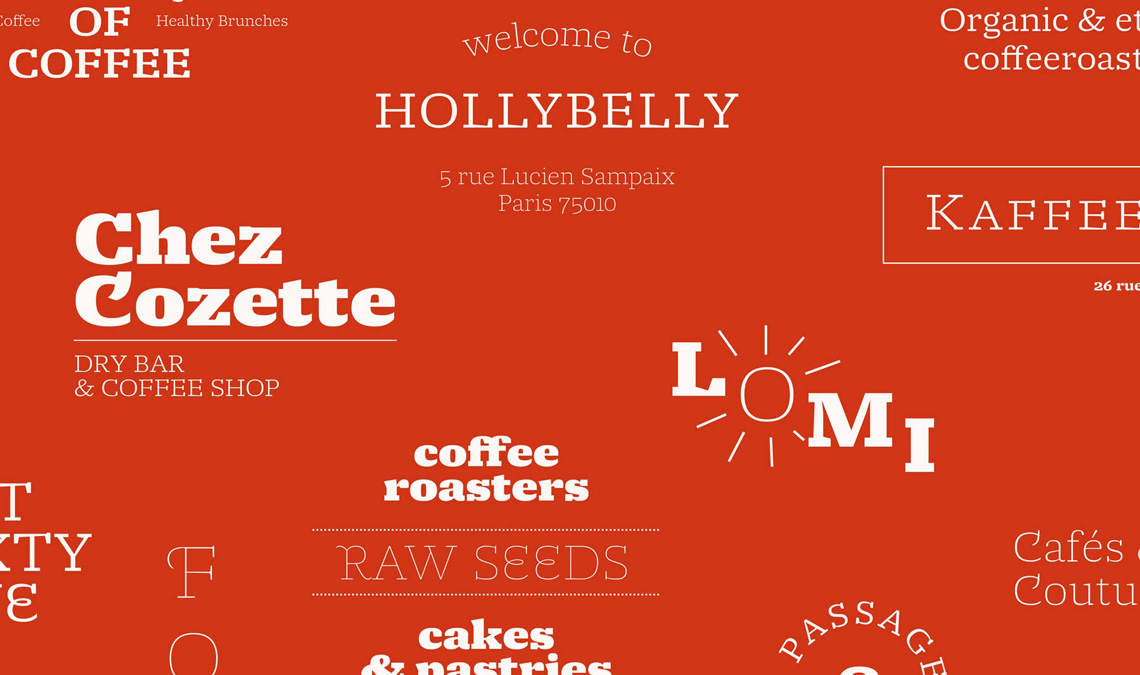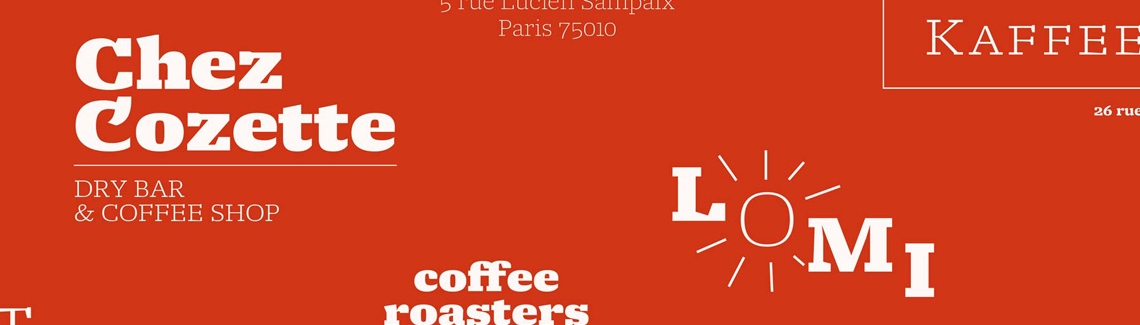
New release: Molto
Xavier Dupre’s Molto font family is a tonal master, creating tenderness in a slab serif and tempering toughness with flourishes.
Every once in a while something new gets added to an old standby. In this case, a tough slab serif has been jolted with a strong shot of exuberant flourishes. TypeTogether is proud to announce Molto — another significant release by Xavier Dupré. Molto font is a slab serif font with large sections of stalwart concrete that are tempered by thin mohair connections. Its nine roman weights ensure posters and magazine headlines receive an elevated and contrasting treatment and captions are as legible as normal text. Grab a coffee and wake your eyes with a powerful and gentle take on slab fonts.